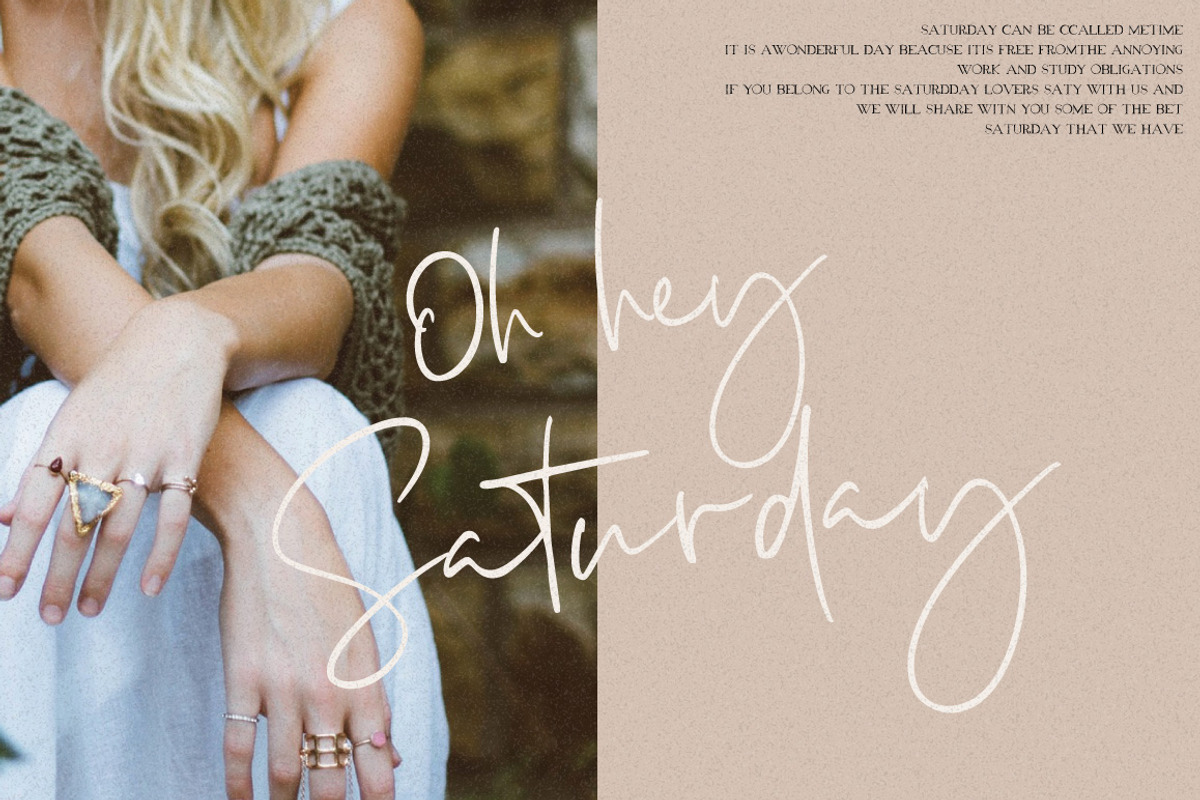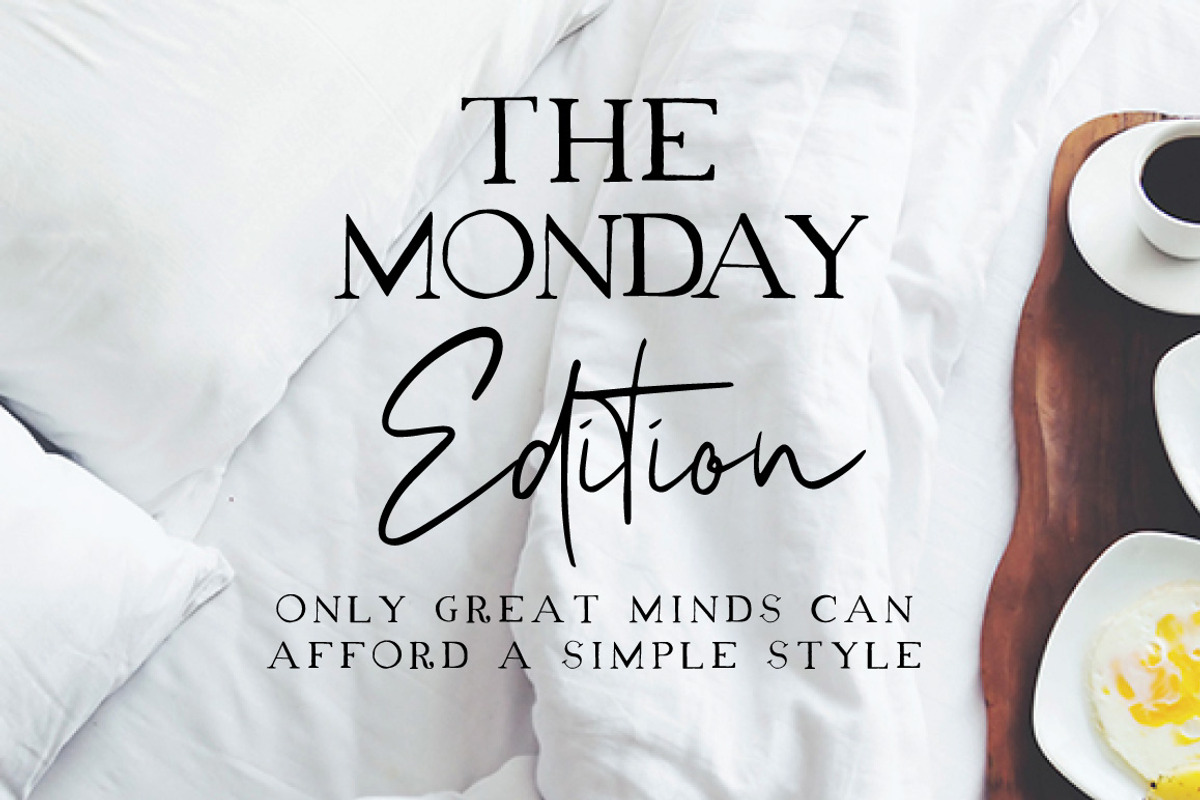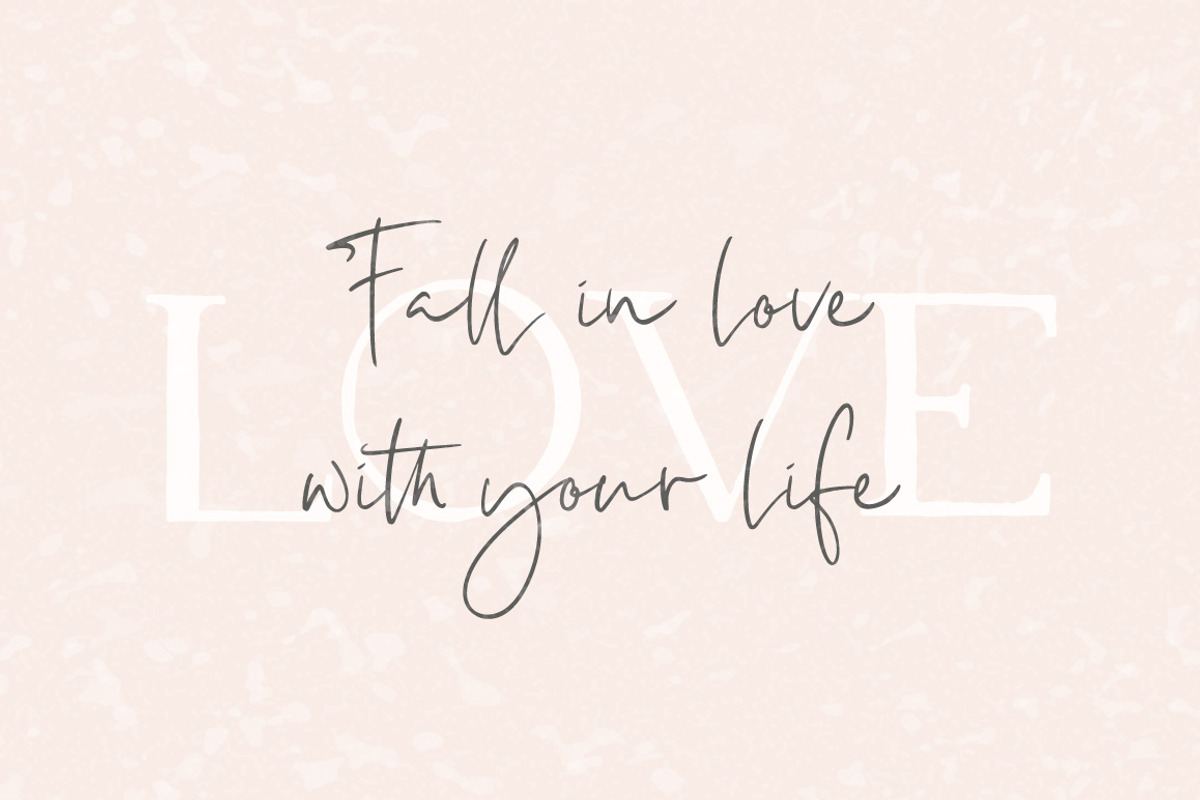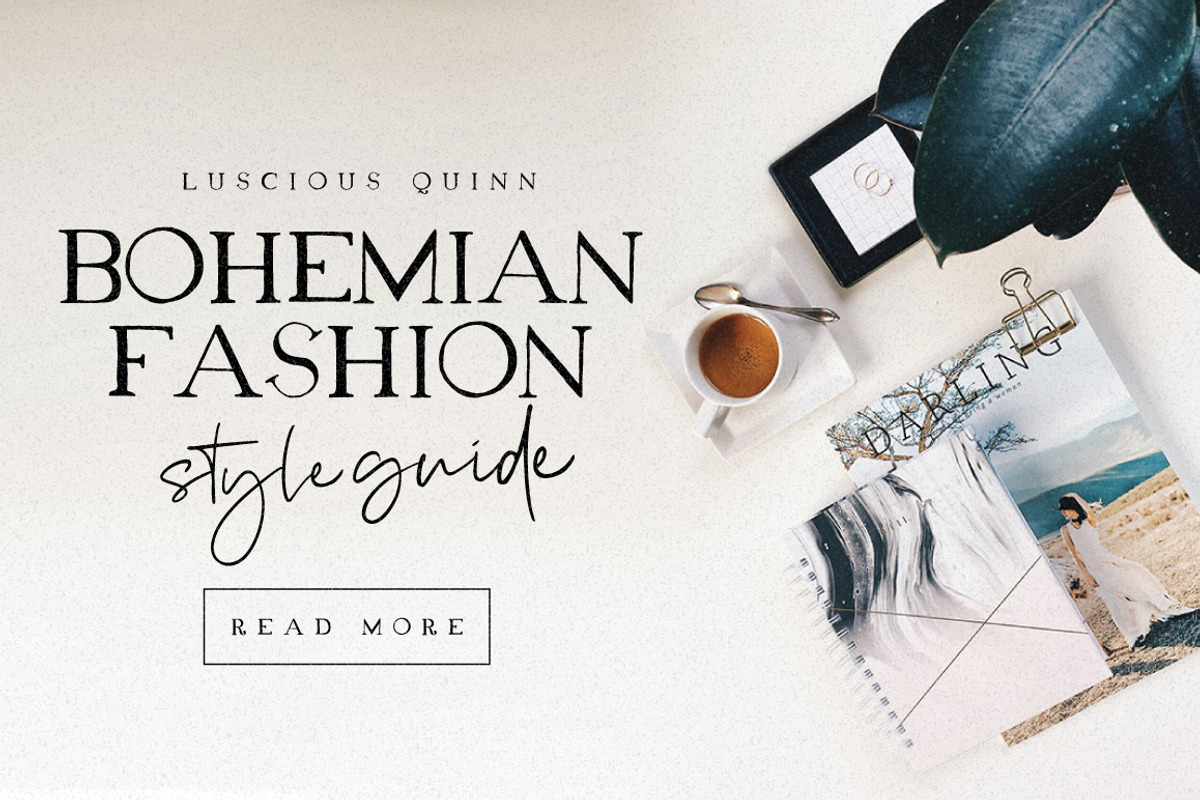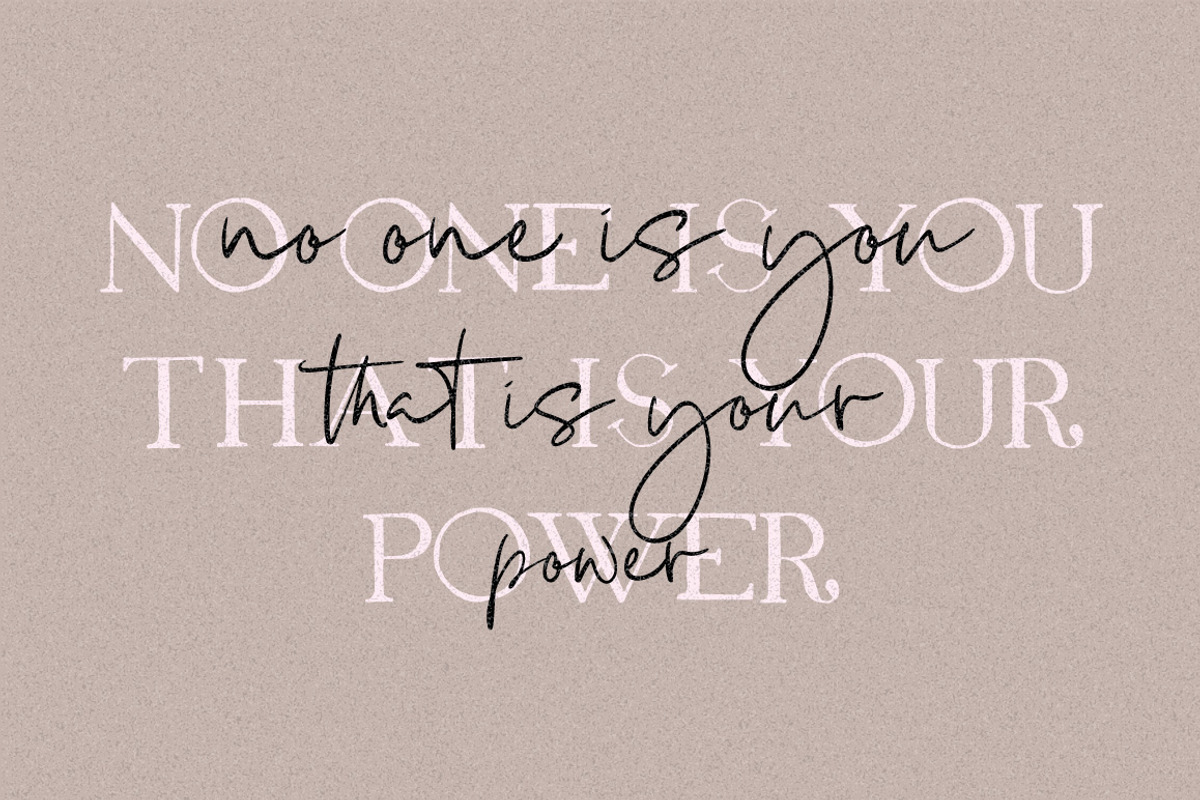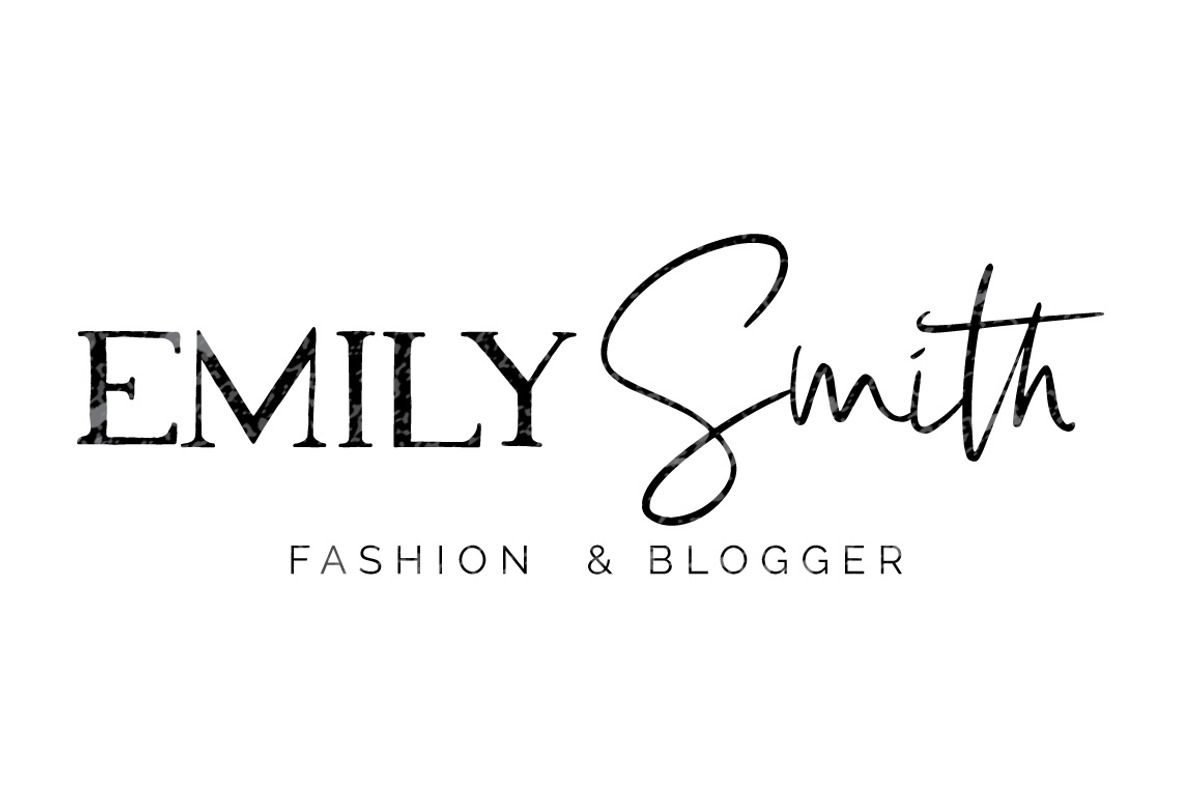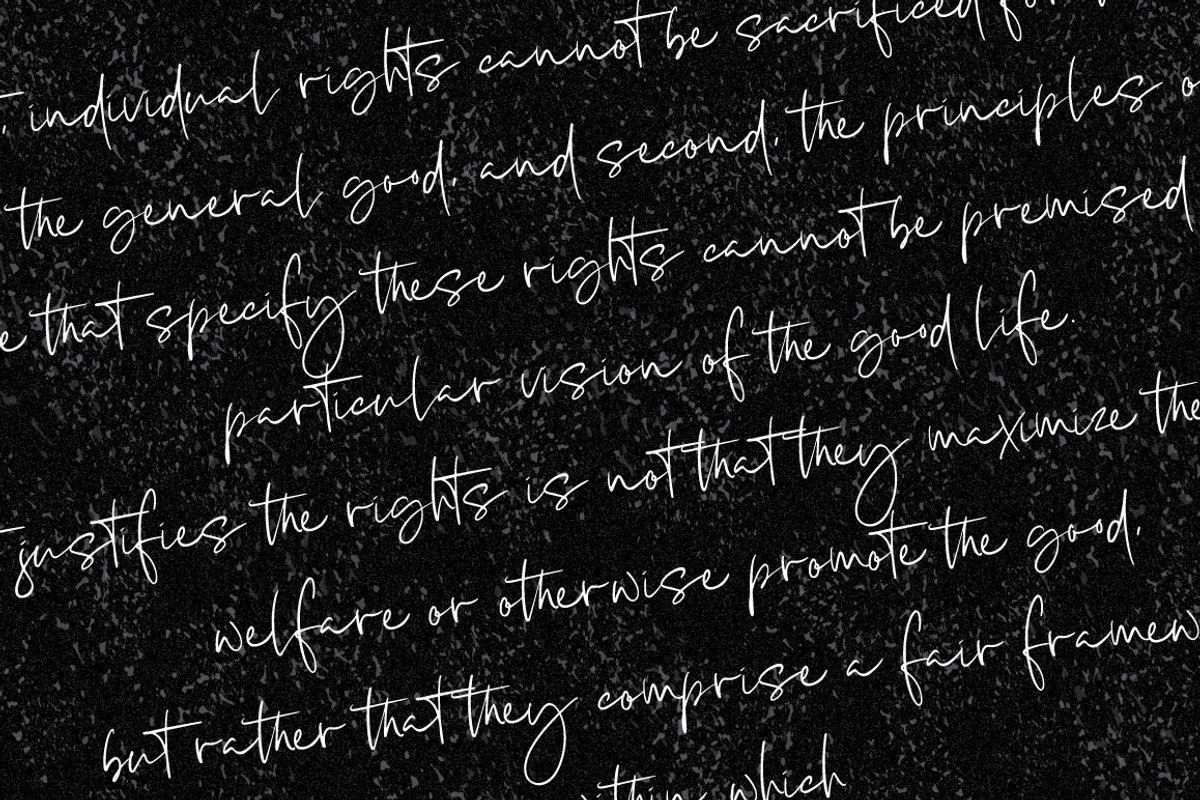
Luscious Quinn Font Duo
Introducing the Luscious Quinn Font Duo, a luxurious, contemporary pair of script and serif font. With stylish hand lettered serif and elegant yet beautiful script companion, Luscious Quinn offers beautiful harmony for a diversity of design projects, including logos & branding, wedding designs, social media posts, advertisements & product designs.
Multilingual Support is included for the following languages: Cornish, Danish, English, Estonian, Faroese, Filipino, Finnish, French, Friulian, Galician, German (Switzerland), Gusii, Icelandic, Indonesian, Irish, Italian, Kabuverdianu, Kalenjin, Kinyarwanda, Luo, Luxembourgish,Norwegian Bokmål, Norwegian Nynorsk, Portuguese, Romansh, Scottish Gaelic, Spanish, Swedish, Swiss German.